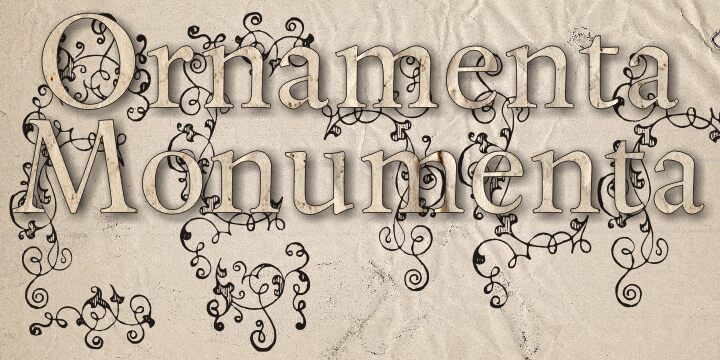
Ornamenta Monumenta by Paulo W is a free curly decorative font filled with scrolling vines, leafy flourishes, and elaborate frame-like forms drawn in lively uneven lines. Its thin, looping strokes repeatedly tighten into dark teardrops, pointed leaves, and small knots. Some characters resemble compact corner ornaments, and others spread into long borders, arches, or formal cartouches.
Botanical illustration and engraved pattern are the clearest companions for this set, making it useful for invitation borders, heritage packaging, theatrical posters, and event programs. In publishing, its flourishes can become chapter dividers and bookplate-style frames.